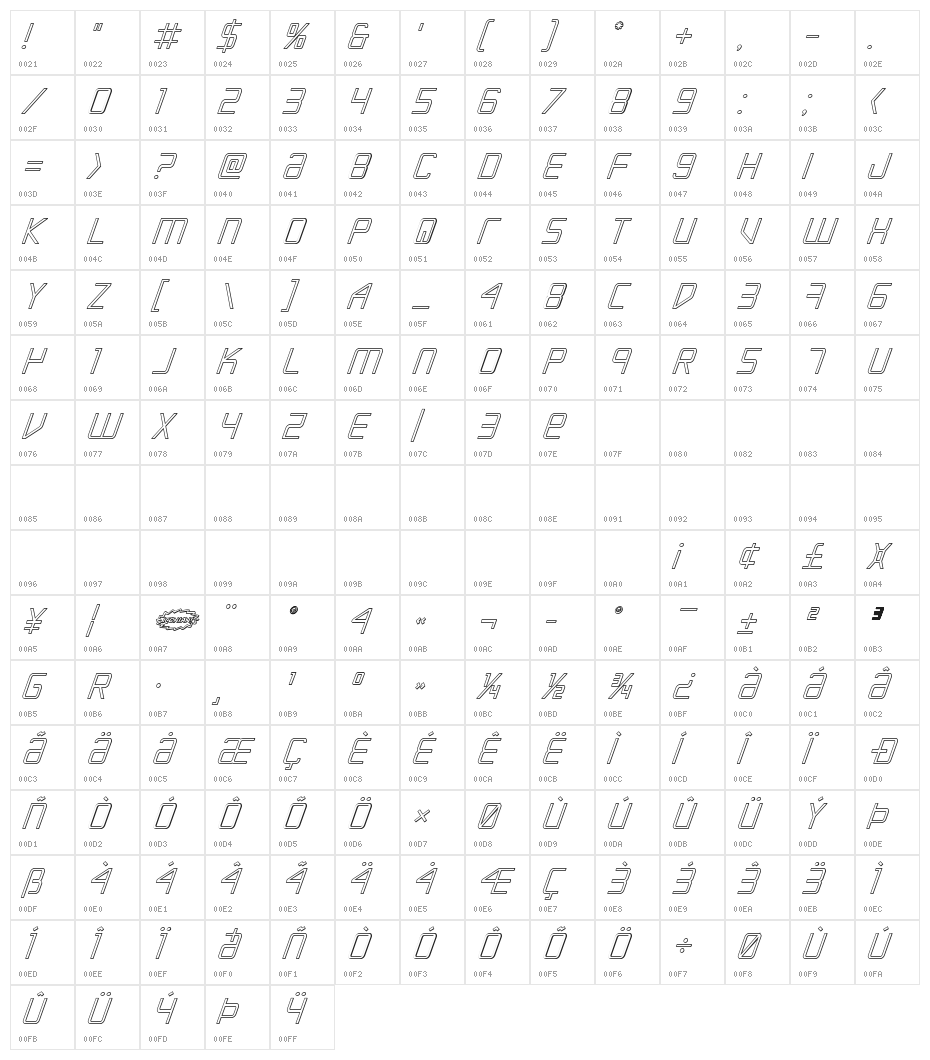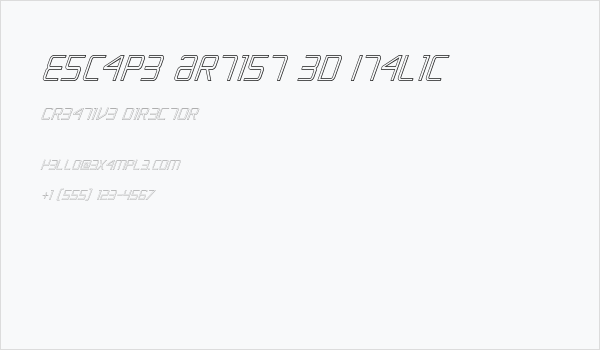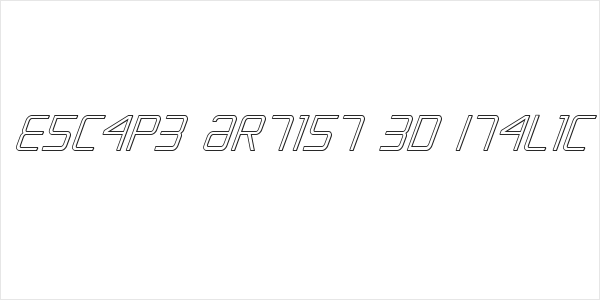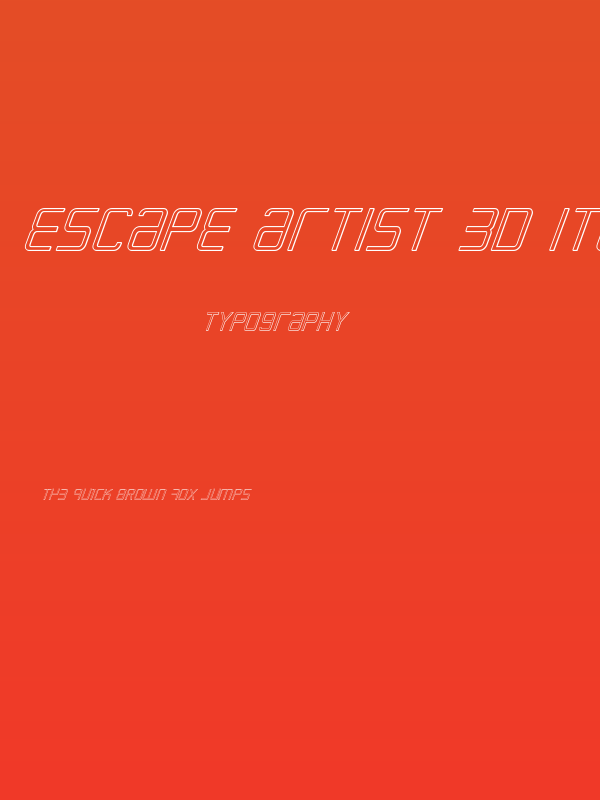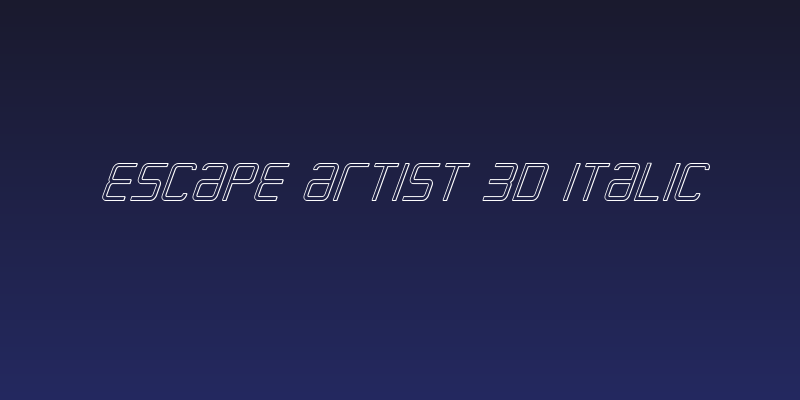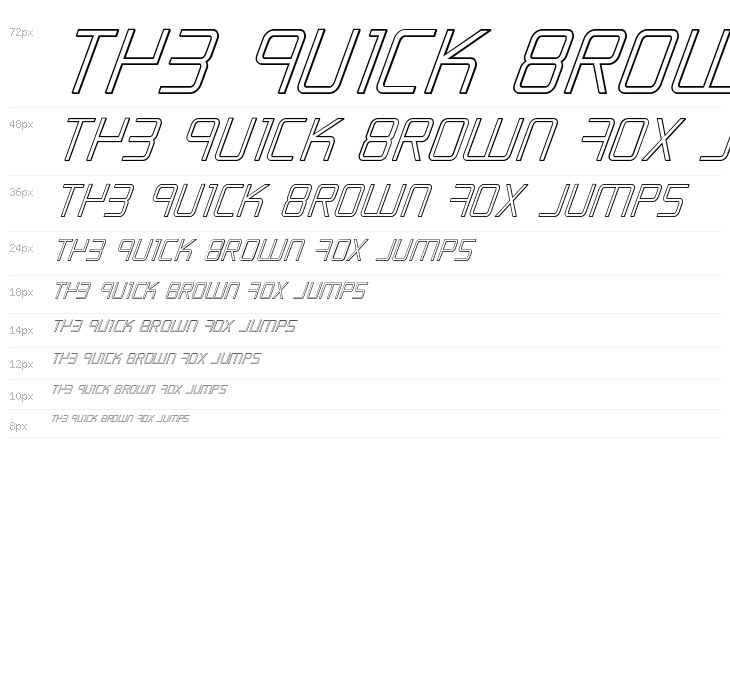
Escape Artist 3D Italic Font
Escape Artist 3D Italic Description
This font features a modern, geometric design with a 3D effect that gives it a sense of depth and dimension. The characters are italicized, adding a dynamic and forward-leaning appearance. Each letter is outlined, creating a hollow effect that enhances the 3D illusion. The font maintains a consistent stroke width throughout, contributing to its sleek and futuristic style. The spacing between characters is normal, ensuring readability while preserving the unique aesthetic. This font is particularly suitable for projects that require a contemporary and eye-catching look.
| Proposed Projects | Ideal for futuristic designs, tech branding, video game titles, and digital media. |